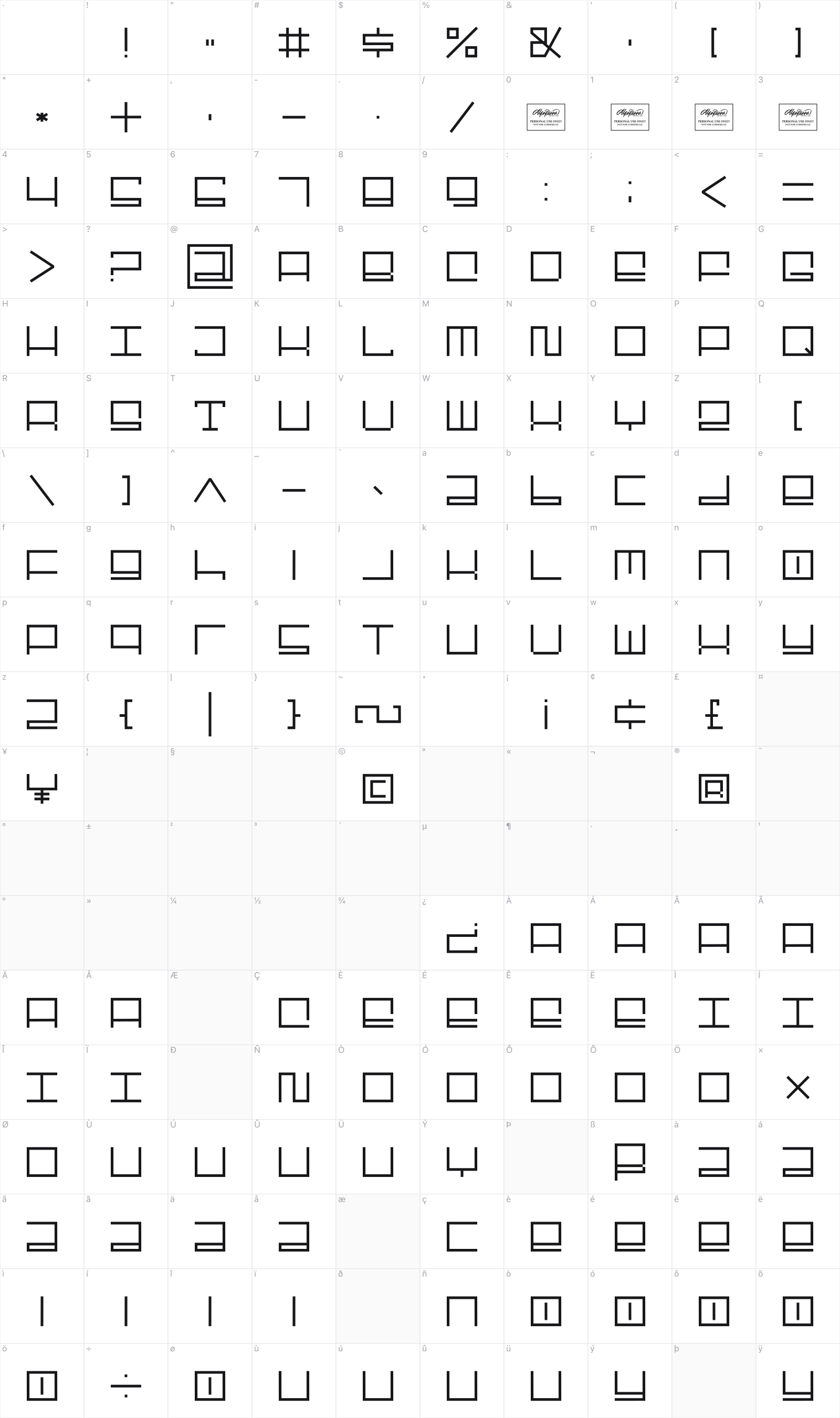
Boost Display
Boost Display is a hairline geometric sans built entirely from square and rectangular modules with sharp right-angle corners. The near-total absence of stroke contrast and the strict grid construction give it a cold, drafting-table precision that reads as confidently futuristic. Best used large, where those architectural corners can do their work.